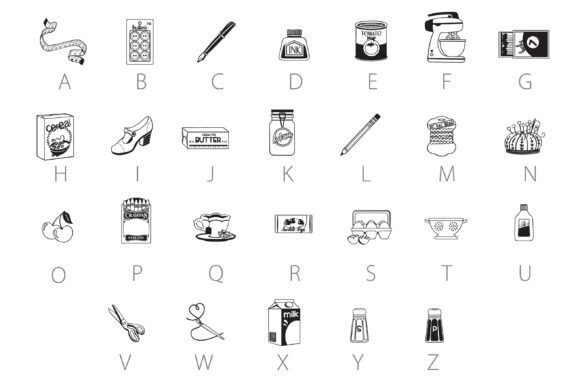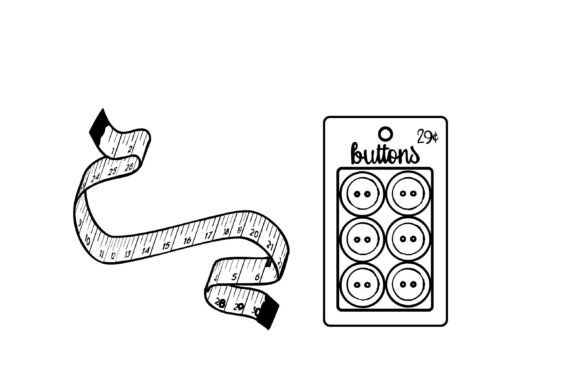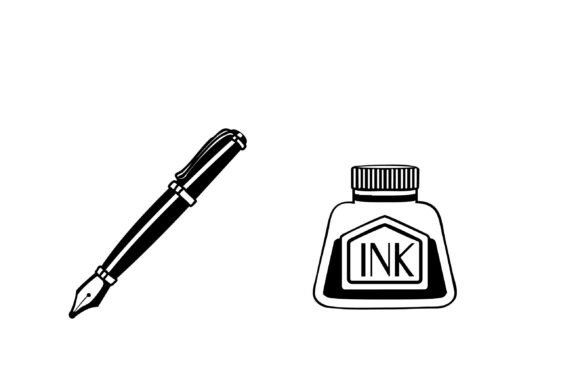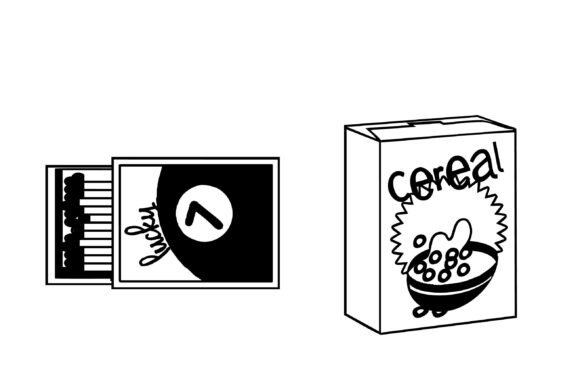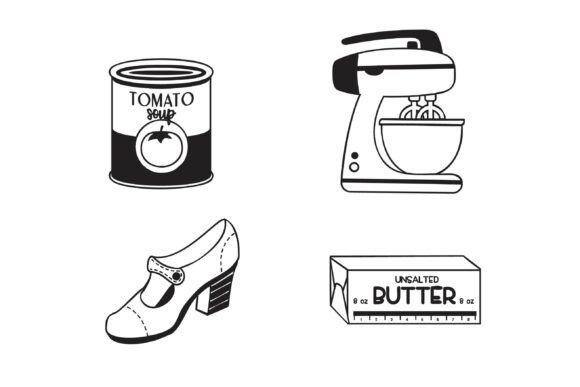
Dainty Domestic Dingbats Font: A Timeless Collection of Vintage Homemaking Icons
Are you a designer, crafter, or simply someone who appreciates the charm of vintage homemaking? Look no further than the Dainty Domestic Dingbats Font, a nostalgic collection of icons that will transport you back to a bygone era of timeless charm. This meticulously illustrated set of mid-century domestic essentials is perfect for adding a touch of warmth and personality to your designs.
What is Dainty Domestic?
Dainty Domestic is a comprehensive collection of homemaking and craft-themed icons, carefully crafted to evoke the spirit of a bygone era. The set features a wide range of retro-style illustrations, including stand mixers, sewing notions, mason jars, and classic pantry staples. Each icon is meticulously designed with clean, vintage-style line work, giving the collection a distinctive “home-and-heart” soul.
Whether you’re a designer looking for inspiration or a crafter seeking to add a personal touch to your projects, Dainty Domestic is the perfect choice. The icons are versatile and can be used in a variety of contexts, from independent lifestyle blogs to boutique kitchenware branding, custom recipe card designs, and cozy “slow-living” social media assets.
Key Features of Dainty Domestic
- Meticulously illustrated icons: Each icon is carefully designed to capture the essence of mid-century domestic essentials.
- Retro-style illustrations: The collection features a range of retro-style illustrations, from stand mixers to sewing notions.
- Clean, vintage-style line work: The icons are designed with clean, vintage-style line work, giving the collection a distinctive “home-and-heart” soul.
- Versatile: The icons can be used in a variety of contexts, from digital designs to print materials.
Using Dainty Domestic in Your Designs
There are countless ways to use Dainty Domestic in your designs. Here are a few ideas to get you started:
- Blog and social media assets: Add a touch of vintage charm to your blog or social media assets with Dainty Domestic icons.
- Branding and packaging: Use the icons to create custom branding and packaging for your boutique kitchenware or craft business.
- Recipe cards and cookbooks: Add a personal touch to your recipe cards and cookbooks with Dainty Domestic icons.
- Stationery and invitations: Use the icons to create custom stationery and invitations for special occasions.
Why Choose Dainty Domestic?
With so many icon sets available, why choose Dainty Domestic? Here are just a few reasons:
- Unique and distinctive: Dainty Domestic is a one-of-a-kind collection of icons that will set your designs apart.
- High-quality illustrations: Each icon is meticulously designed to ensure high-quality illustrations.
- Easy to use: The icons are easy to use and can be incorporated into a variety of designs.